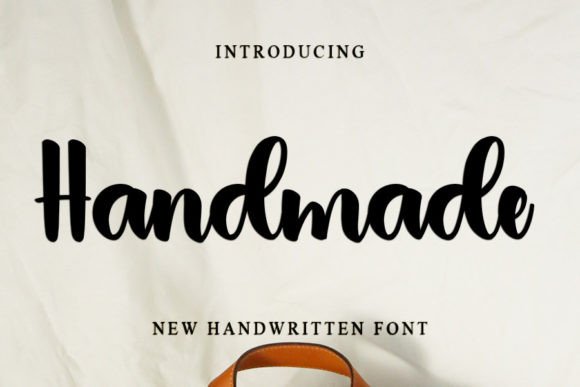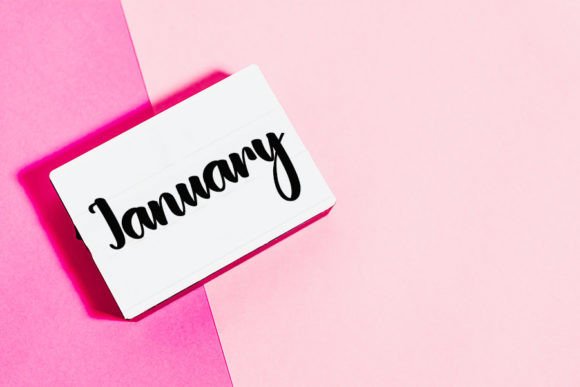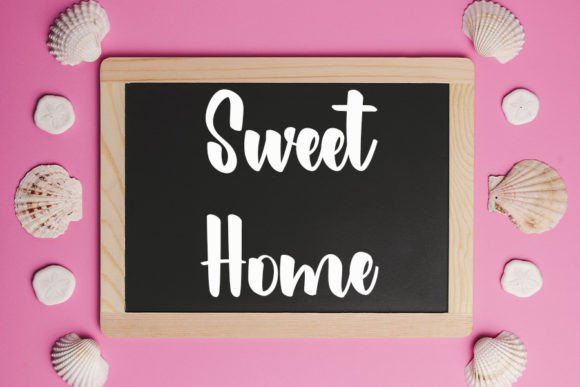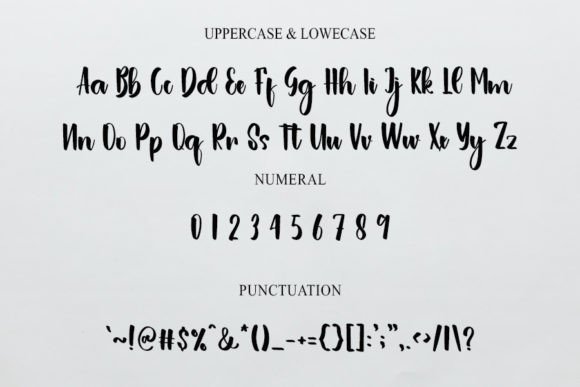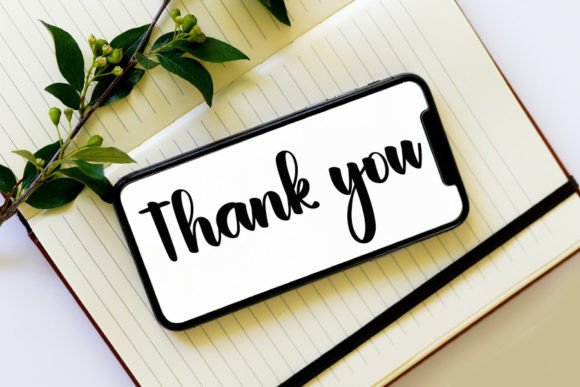
“Handmade” is a meticulously crafted and exquisite handwritten font, known for its elegant and refined touch. It is a perfect choice for a wide range of creative projects and is characterized by its distinct and timeless style, making it a valuable asset for designers looking to create remarkable and visually appealing designs.
The font’s versatility makes it suitable for various design applications. Whether you’re working on branding, logo design, graphic design, or typography, “Handmade” offers an elegant and versatile option.
For branding and visual identity, “Handmade” can play a pivotal role in establishing a sophisticated and distinguished image for businesses and brands. Its elegant handwritten appearance adds an air of class and timelessness, making it ideal for those aiming for a unique and memorable brand identity.
In printed materials such as posters, flyers, and promotional materials, “Handmade” adds an element of grace and uniqueness. Its handwritten script exudes authenticity and artistic flair, making it an excellent choice for capturing attention and effectively conveying messages.
For personal projects like invitations, greeting cards, and stationery, “Handmade” can imbue your messages with an extra layer of elegance and charm. It imparts a sense of timeless beauty to your words, making it suitable for various special occasions and personal expressions.
In essence, “Handmade” is more than just a font; it’s a creative tool that brings a neat and sophisticated atmosphere to your projects. Its adaptability and timeless aesthetics make it a valuable asset for designers and individuals looking to infuse their work with elegance and beauty, enhancing the overall impact of their creative endeavors.